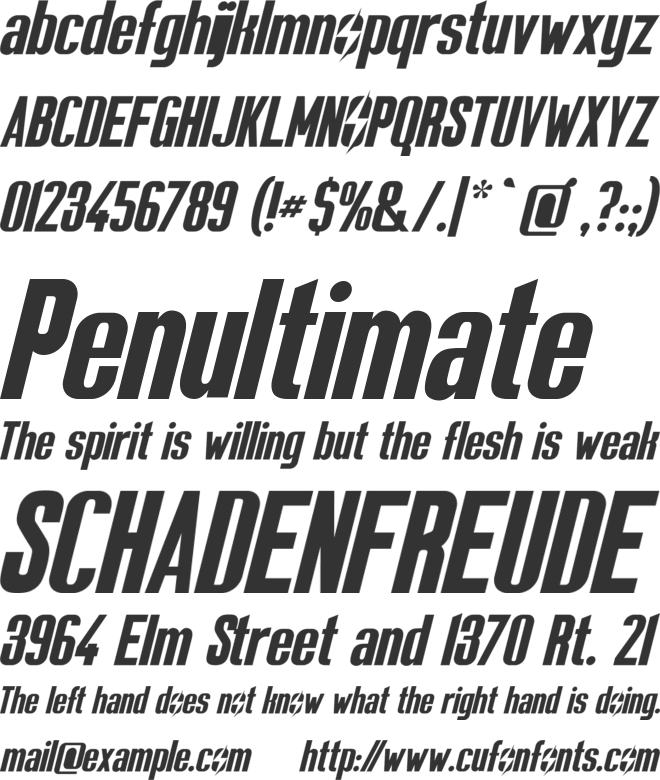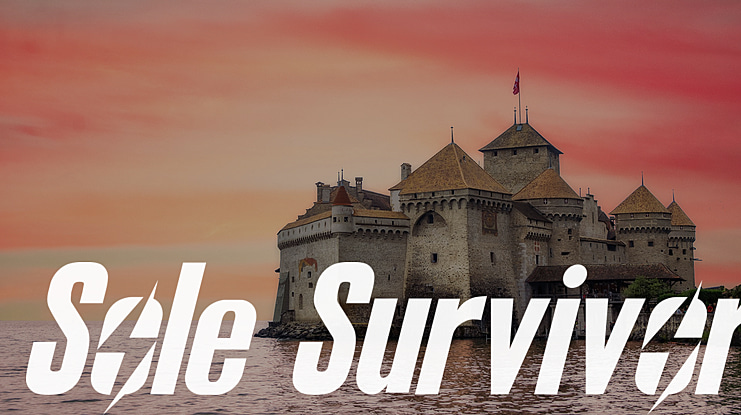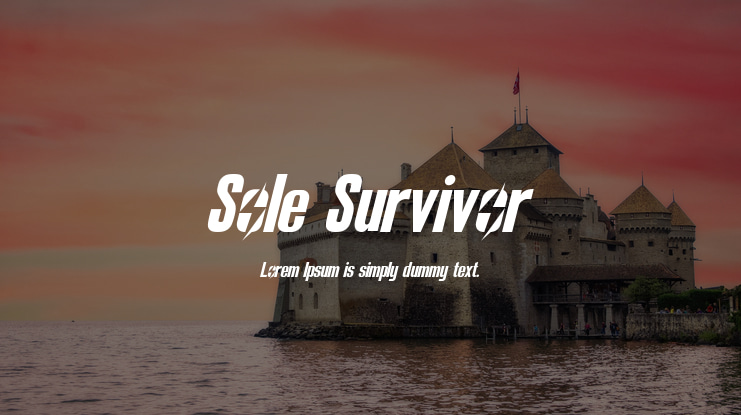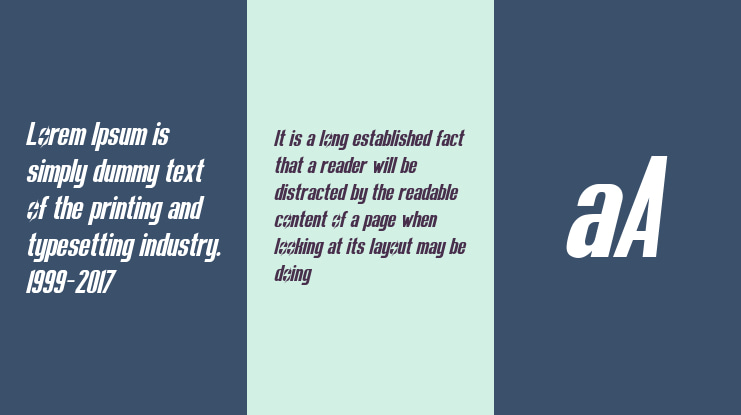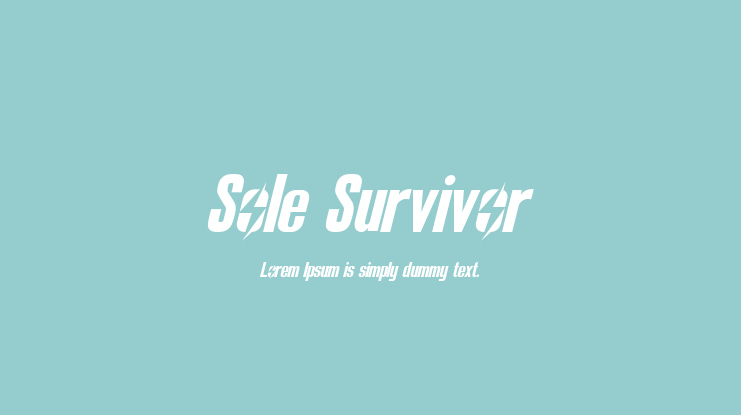
Sole Survivor Font Family
Grab your sidekick and tour the wastelands!
Yeah, it's the font for Fallout...at least my take on it. Two versions - one with the lightning O and one without.